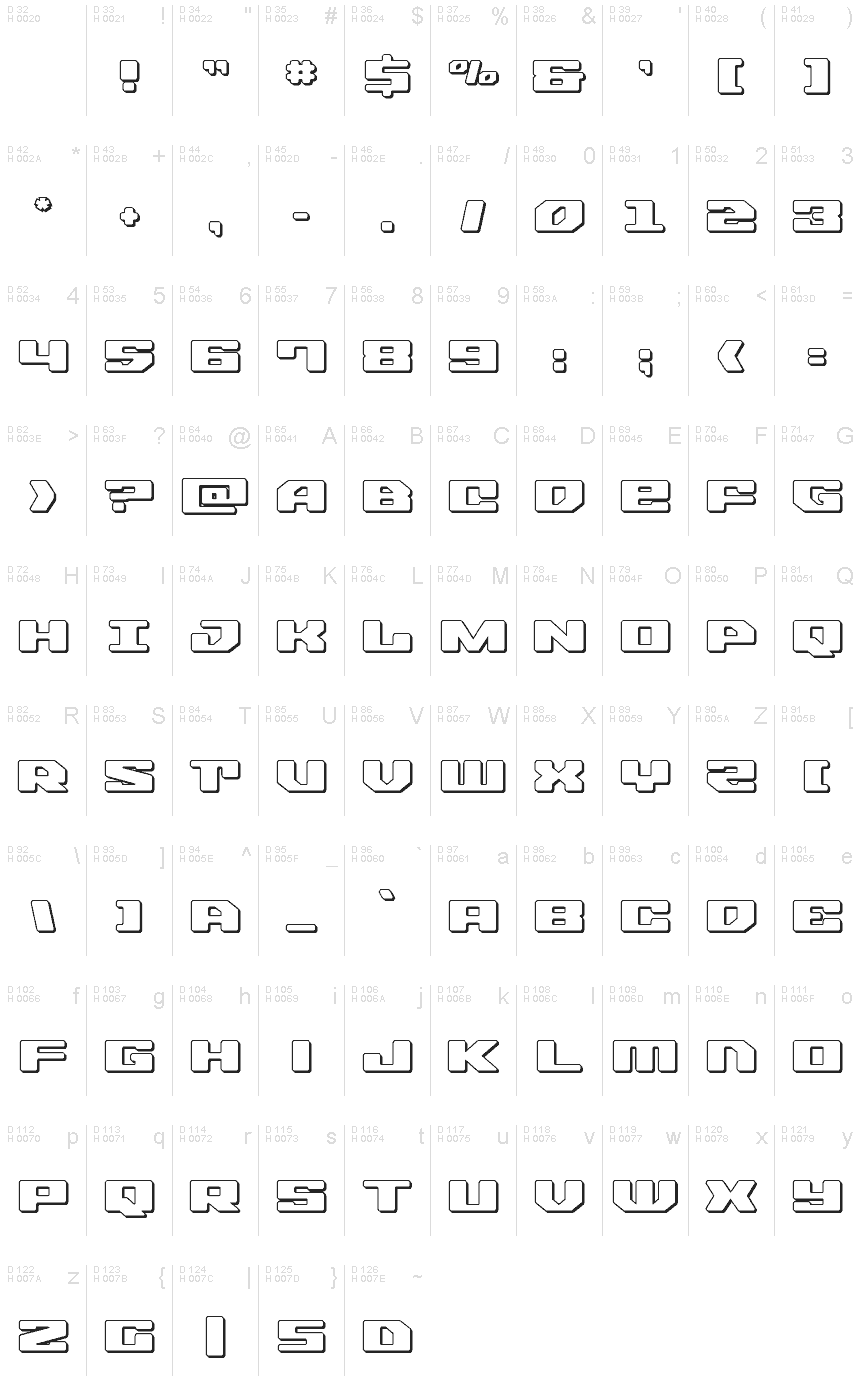
Fawkes 3D
Fawkes 3D font by Iconian Fonts is a bold display typeface whose style is 3D and techno. With an expanded width, the retro characters with angular shapes and geometric structures introduced can instantly make an impression, especially when used in one word titles or with short texts. Fawkes 3D font with its futuristic elements challenges both designers and the viewers as it adds tech-inspired designs to projects that demand innovation.
Make your posters stand out by featuring Fawkes or allow it to decorate album covers. Social media posts have never looked better when their templates and backgrounds are designed using this free font, a lovely addition to websites with gaming themes as well. Give your games as well an upgrade whether they’re video games or board games and feature the complementary font for their packaging designs or even other parts of the game like playing cards since Fawkes has a captivating presence that cannot be missed!